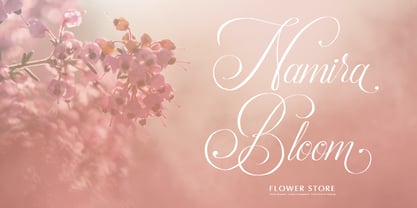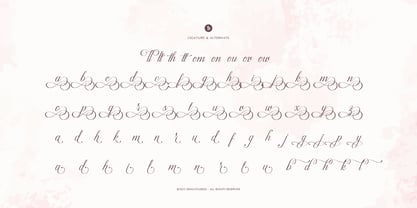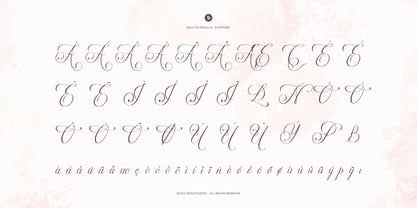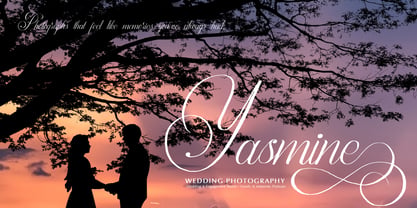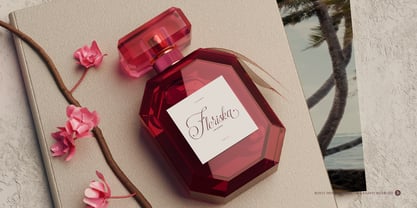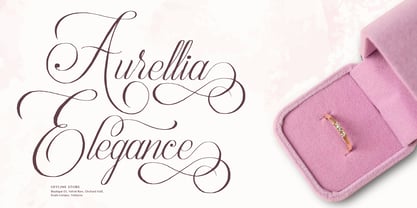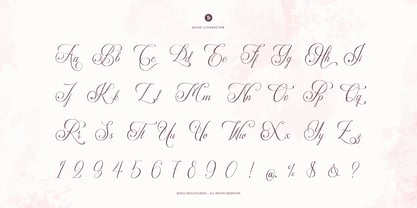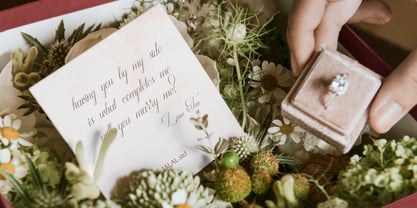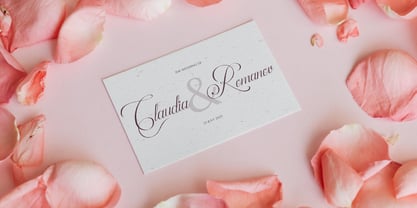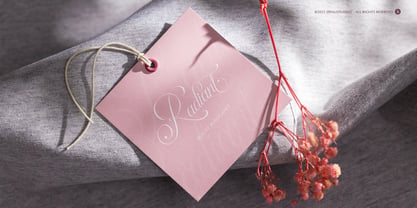
Palmeira Benvello
von Denustudio
Die Schriftfamilie Palmeira Benvello wurde von Dede Nugraha entworfen und von Denustudio veröffentlicht. Palmeira Benvello enthält 2 Stile. Mehr über diese Familie
Palmeira Benvello | Organic Calligraphy, from Denustudios, suitable for any projects such as: logos, branding projects, homeware designs, product packaging, mugs, quotes, posters, shopping bags, t-shirts, book covers, name card, invitation cards, greeting cards, label, photography, watermark, special events, and all your other lovely projects that need Calligraphy a taste.
Designer: Dede Nugraha
Foundry: Denustudio